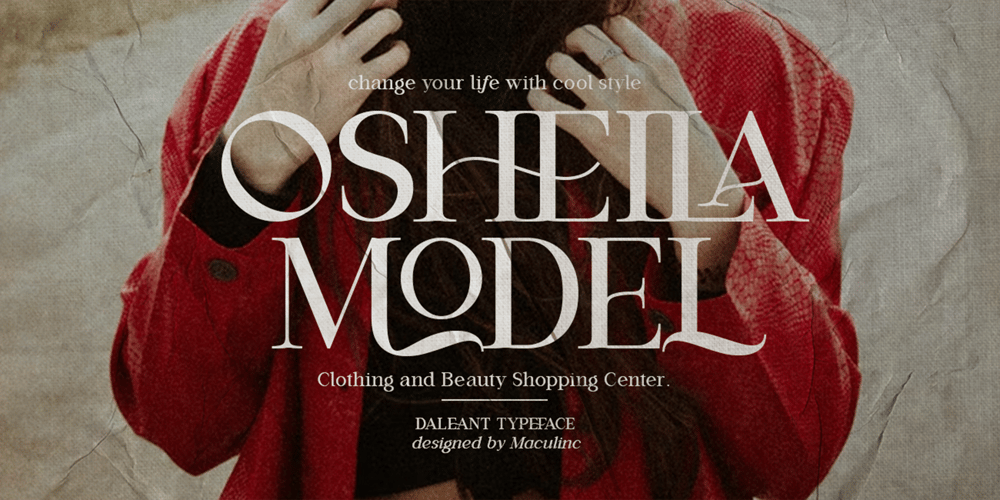
Daleant Serif Font Font Family was designed by Lukmanul Khikmatullah and published by Maculinc. Daleant Serif Font contains 10 styles and family package options. The new beautiful and attractive Serif Font comes with a unique alternative in each Uppercase, This Font is available in Uppercase and Lowercase Complete with Numbers, Punctuation, Alternate and Ligatures.Daleant Serif Font is available in the family of Light, Light-Italic, Regular, Italic, Medium, Medium-Italic, Semi Bold, Semi Bold-Italic, Bold, Bold-Italic.Alternatives and Ligatures in this font are only available in uppercase letters, Add alternatives to make sentences more unique and interesting.10 FontsMultilingual SupportIf you are looking for a custom font or web license, and for support, feel free to contact us at maculinc@gmail.comThank you for visiting us and don’t forget to follow us :Behance ( https://www.behance.net/maculinc )Dribbble ( https://dribbble.com/Maculinc )Instagram ( https://www.instagram.com/maculinc/ )